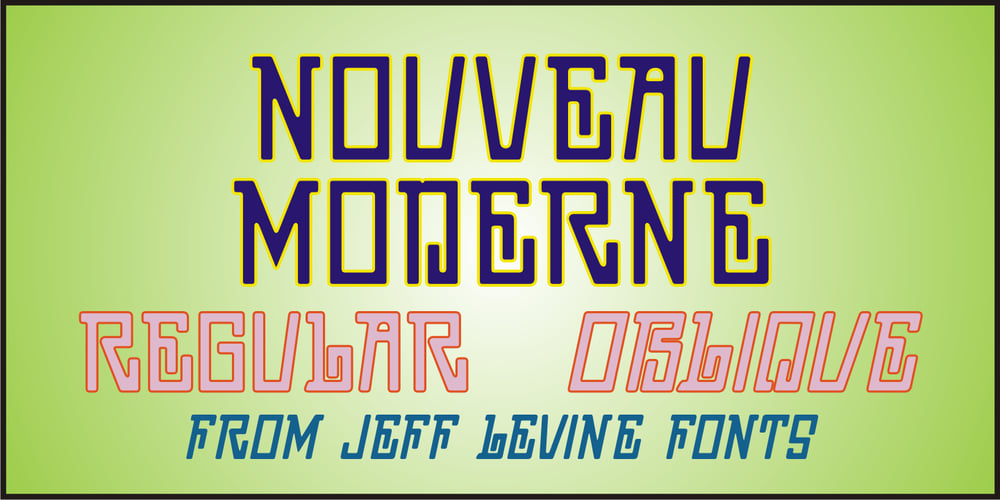
Nouveau Moderne JNL
Nouveau Moderne JNL font
Nouveau Moderne JNL Font Family was designed by Jeff Levine and published by Jeff Levine. Nouveau Moderne JNL contains 2 styles and family package options. The cover of the 1904 sheet music from the Tibetan comic opera “The Forbidden Land” had the title hand lettered in an unusual Art Nouveau style. Mostly squared with rounded corners, many of the characters twisted, turned and extended in ways that took on the look of the Far East. This became the design model for Nouveau Moderne JNL, which is available in regular and oblique versions.